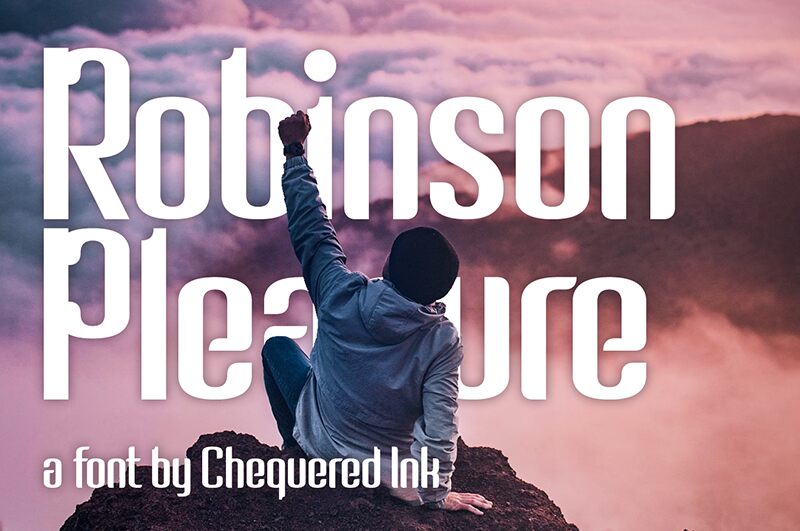
Robinson Pleasure
Robinson Pleasure font by Chequered Ink is a modern display typeface that captures the air of retro. Rather fitting to its name, this condensed font is visually satisfying with its geometric elements, decorative flair, and vintage vibe. Strokes throughout the font are thin and made consistent in terms of width; however, the inclusion of both curved and sharp edges makes it more intriguing.
Get this free deco-style font to use on design materials that need an artistic touch (not overly cursive or heavy). All designers will find it particularly useful for book covers, music album art, branding projects, packaging design ideas (cosmetics), greeting cards, movie posters as well as digital products like mobile applications and web app interfaces.